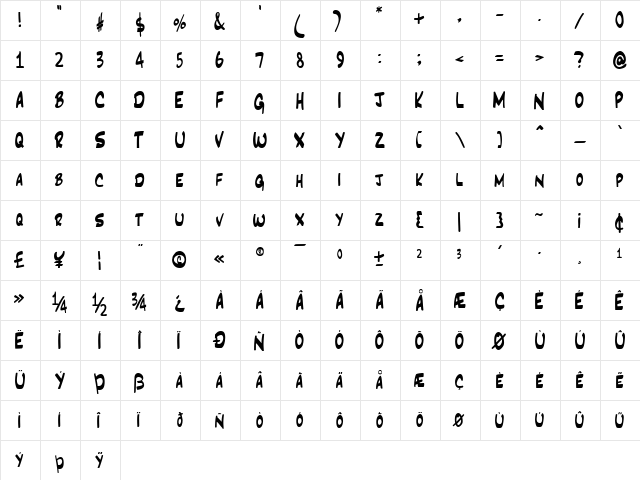
Inkpen2 Script Regular
| Designer | Andrew Davis |
Design Context for Inkpen2 Script Typeface
Inkpen2 Script flows with the natural rhythm of handwritten lettering, making it ideal for designs that call for warmth and personal expression.
Font Pairing: Combine Inkpen2 Script with a simple geometric sans for maximum contrast — the tension between flowing curves and clean structure is a classic typographic pairing.
Pro Tip: Pair Inkpen2 Script with a clean sans-serif for supporting text. The contrast between fluid script and geometric structure creates an elegant typographic hierarchy.